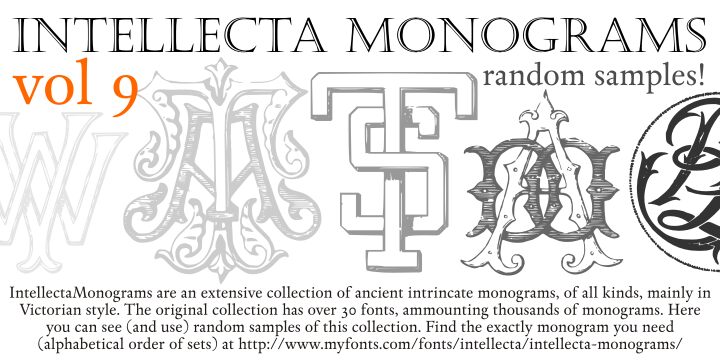
Intellecta Monograms Random Samples Nine by Paulo W. is a free Gothic initials font of elaborate interlaced letterforms, with shields, foliage, flourishes, and engraved textures worked into the designs. Fine loops meet dense heraldic ornament throughout the set.
Designers working on heritage and luxury themes can use these initials for stationery, book covers, packaging, and event invitations. Because each character reads like a ready-made emblem, the collection also suits historical publishing tied to heraldry, Victorian engraving, or old-world decorative arts.
Intellecta Monograms Random Samples Nine by Intellecta Design.
This is a random, limited version of the Intellecta Monograms collection, which contains thousands of monograms.